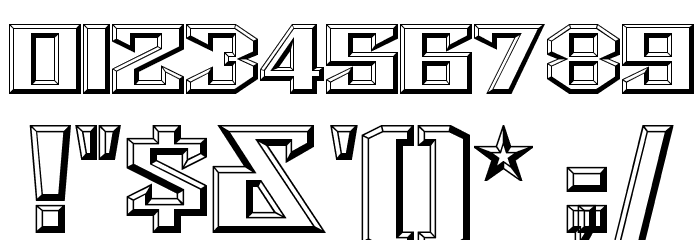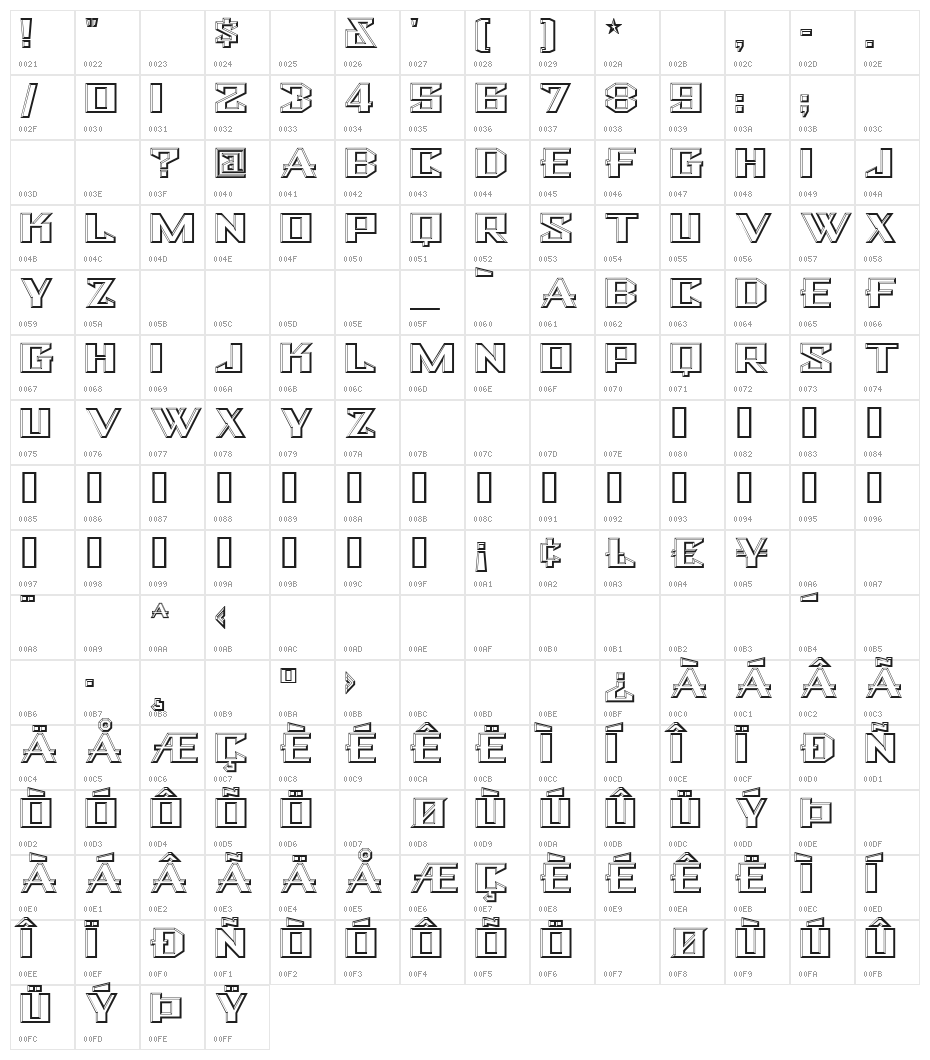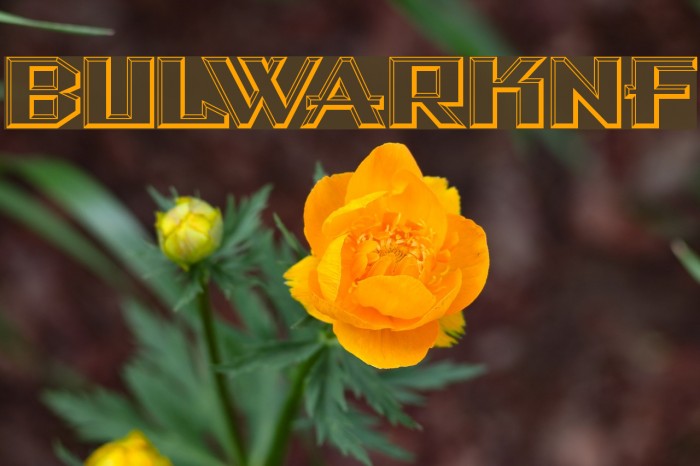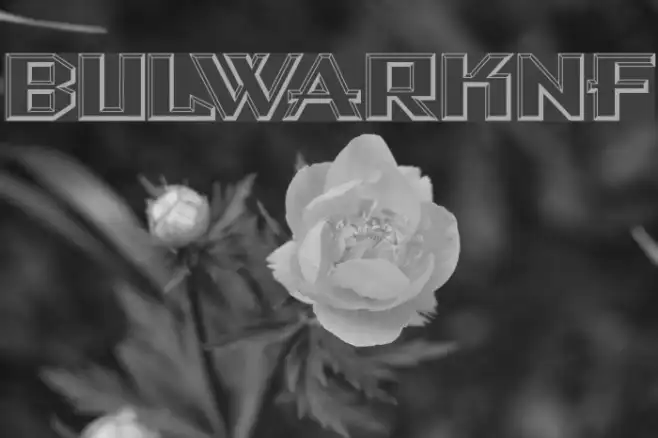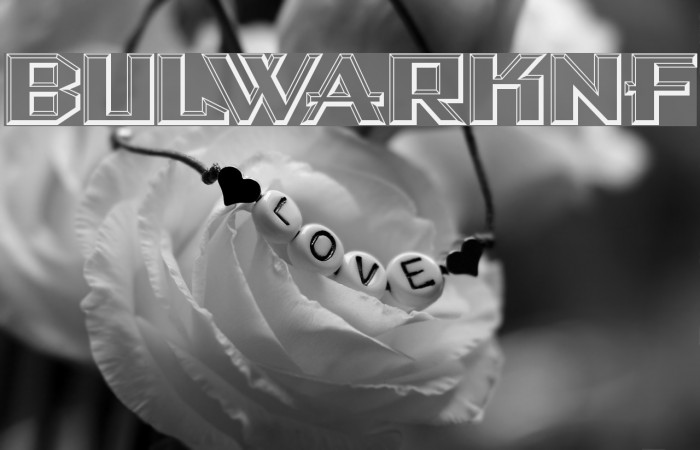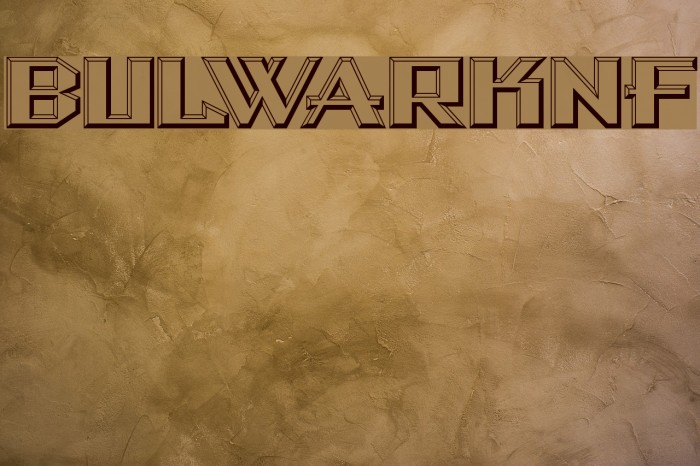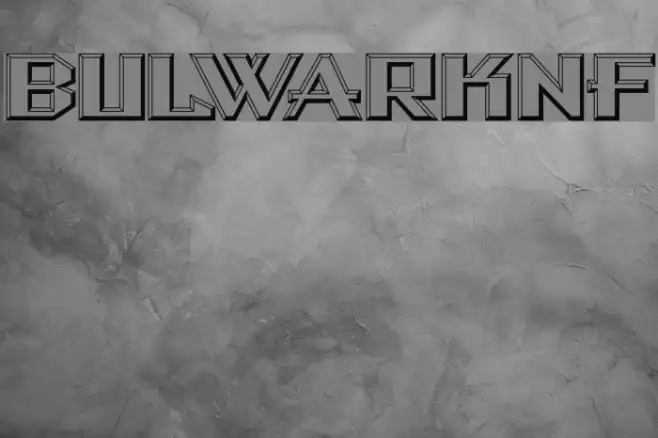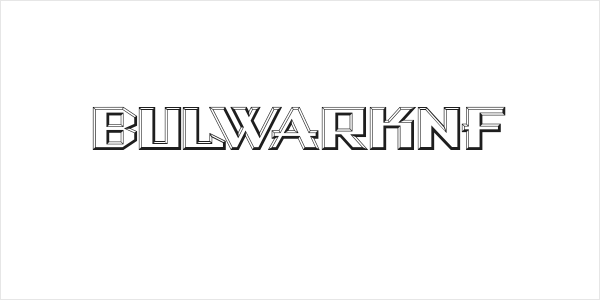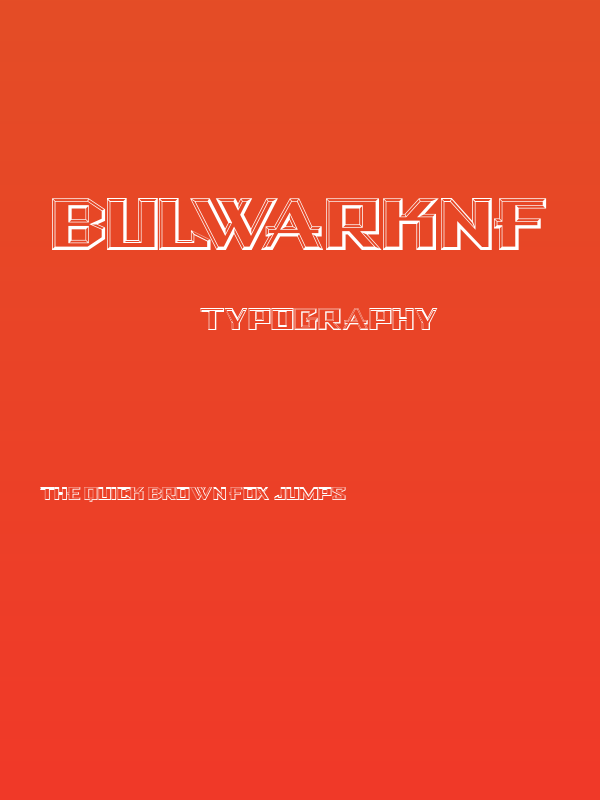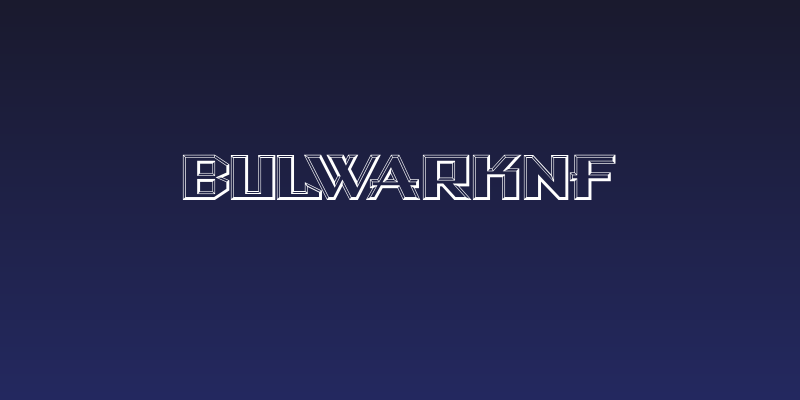
BulwarkNF Font
BulwarkNF Description
This font features a bold, geometric design with a three-dimensional effect that creates a sense of depth and structure. The characters are outlined, giving them a strong, impactful presence. The angular and blocky style is reminiscent of architectural elements, making it ideal for projects that require a robust and industrial aesthetic. The uppercase letters are particularly striking, with sharp edges and a consistent width that enhances readability. The numerals and special characters maintain the same bold and structured appearance, ensuring uniformity across all text elements.
| Proposed Projects | Ideal for branding, posters, signage, and any project needing a strong, industrial look. |